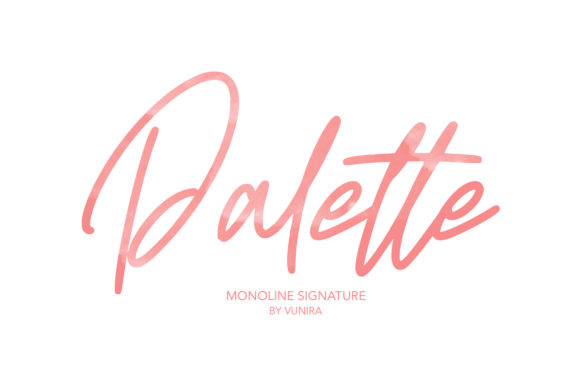
**Behold, the Palette Font: A Stroke of Inspiration for Your Creative Palette**
Immerse yourself in the enchanting world of the Palette Font, a mesmerizing handwritten masterpiece that will ignite your design aspirations. This exquisite typeface, crafted by the renowned Vunira, effortlessly fuses timeless elegance with a touch of modern allure.
Indulge in the artistry of Palette's graceful curves and enchanting strokes, each meticulously designed to evoke emotions and captivate audiences. Its calligraphic heritage shines through, lending an air of sophistication and charm to any project it adorns.
Beyond its aesthetic brilliance, Palette is a versatile chameleon, adapting seamlessly to a myriad of creative endeavors. Whether you're crafting heartfelt letters, designing captivating posters, or creating stunning logos, Palette empowers you to express your unique vision with unparalleled flair.
For those seeking to make a lasting impression, Palette's signature quality shines brightest. Its effortless elegance lends an air of authenticity and personality to any signature or personal branding, setting you apart from the crowd.
Embrace the artistry of Palette Font and unlock a world of creative possibilities. Its timeless beauty and versatility will elevate your projects, transforming them into captivating expressions of your imagination.
**Reasons You'll Fall for Palette Font:**
- Its graceful curves and enchanting strokes will captivate your audience.
- Its calligraphic heritage adds a touch of sophistication to any project.
- Its versatility empowers you to express your creativity in endless ways.
- Its signature quality makes it perfect for creating authentic and memorable personal branding.
- Its timeless beauty ensures that your creations will stand the test of time.